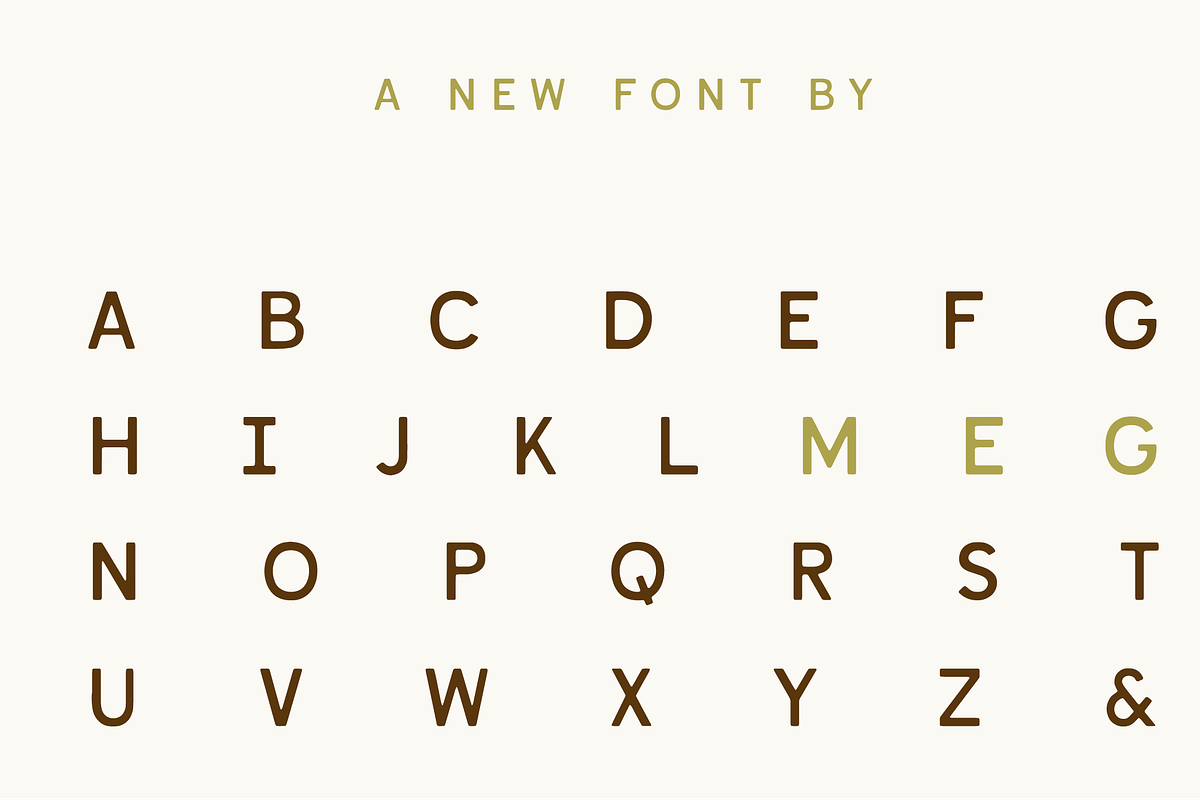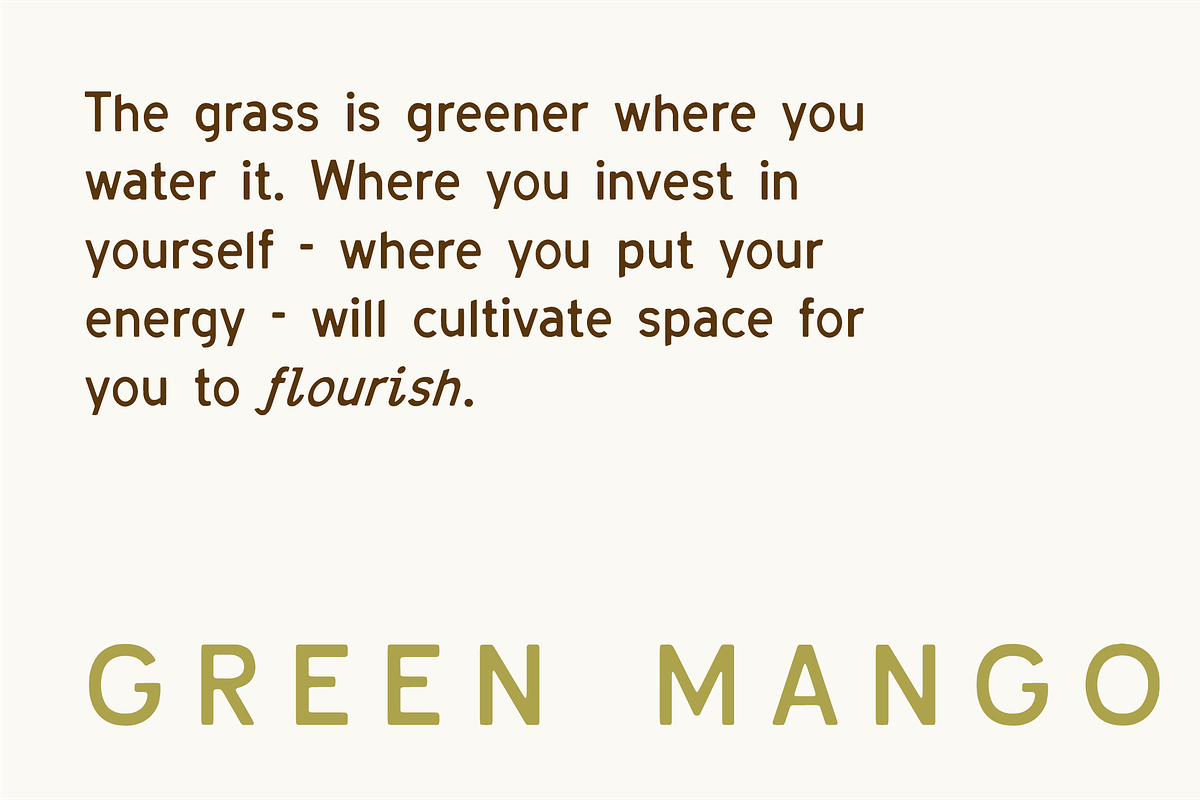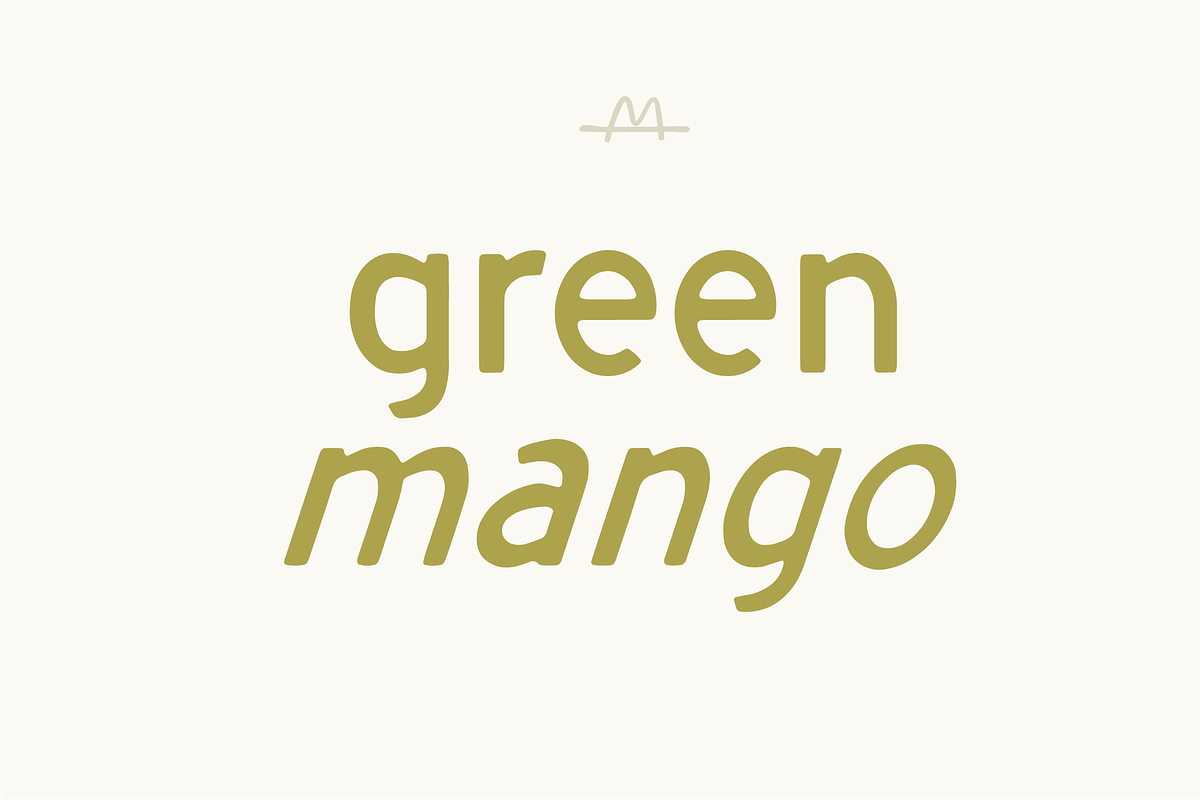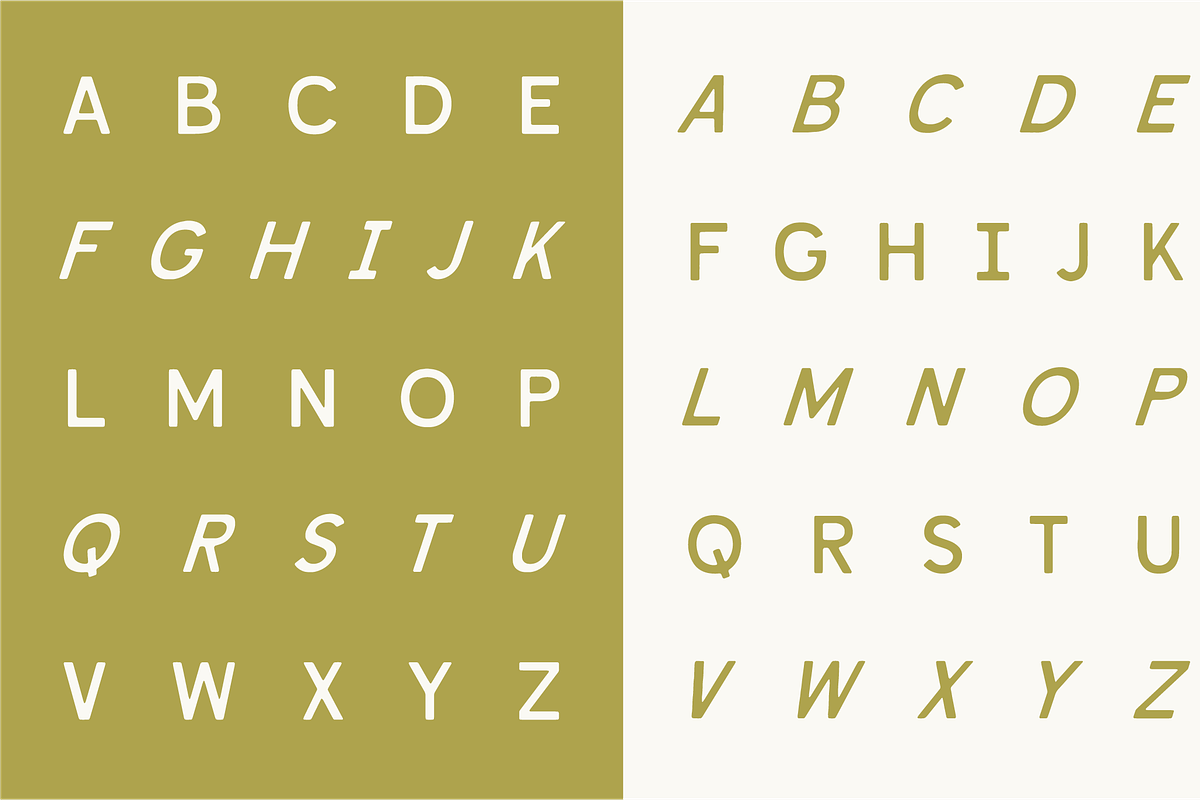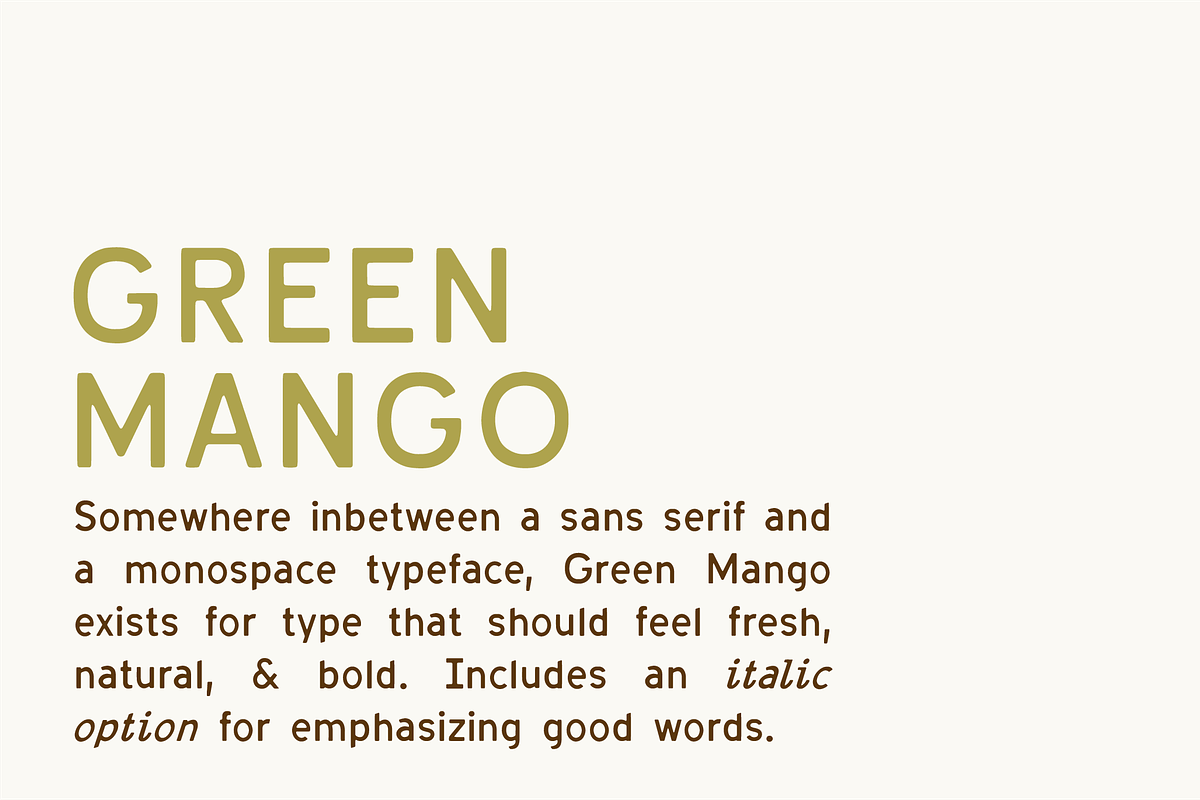
Green Mango
Somewhere in between a sans serif and a monospace typeface, Green Mango exists for type that should feel fresh, natural, & bold. Includes an italic option for emphasizing good words.
This hand crafted font (typeface, rather) was created by Meg Burk to have a playfully hand-made look for a kind of type that is usually very rigid and structured. Very gently softened corners play against the boundaries of a mono space font. Instead of being truly monospace, it reads easier and makes for an interesting type to use on packaging, branding, and social media.